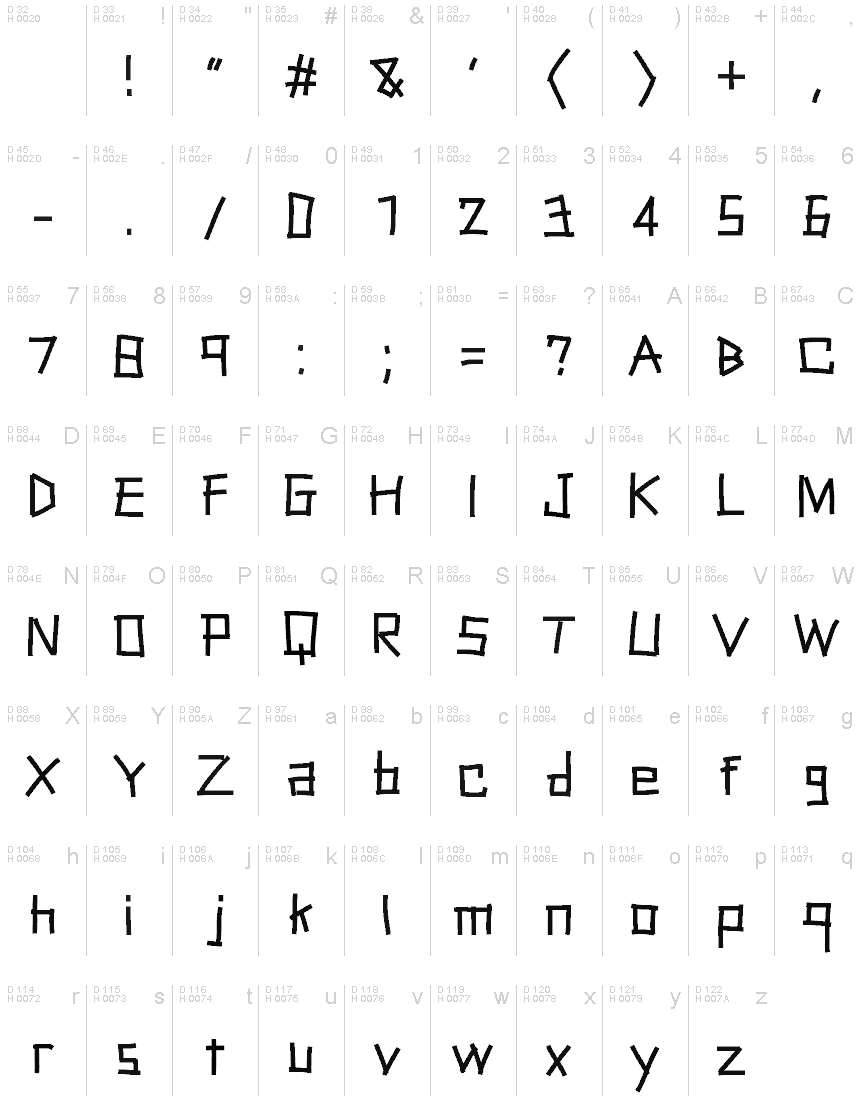
packing tape
Packing Tape is a bold and distinctive display font that commands attention. Its rough, distressed appearance evokes the rugged aesthetic of industrial packaging, exuding a sense of strength and resilience. The irregular, uneven strokes and angular shapes give the font a raw, handcrafted quality, making it ideal for headlines, branding, and creative projects where a bold, unconventional look is desired.
Packing Tape's versatility allows it to seamlessly transition between a wide range of design applications, from product packaging and event branding to editorial layouts and web design. Its striking visual impact ensures that any text set in this font will stand out and leave a lasting impression on the viewer.